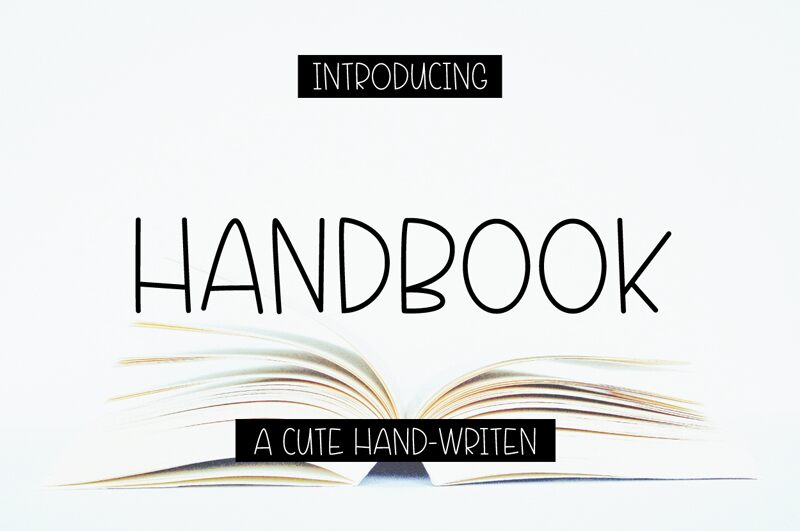
Handbook
Introducing Handbook, a cute handwritten font from Letter Art Studio with a light weight. Perfect for designing logos, posters, greeting cards and web pages, Handbook adds a unique touch to any project.